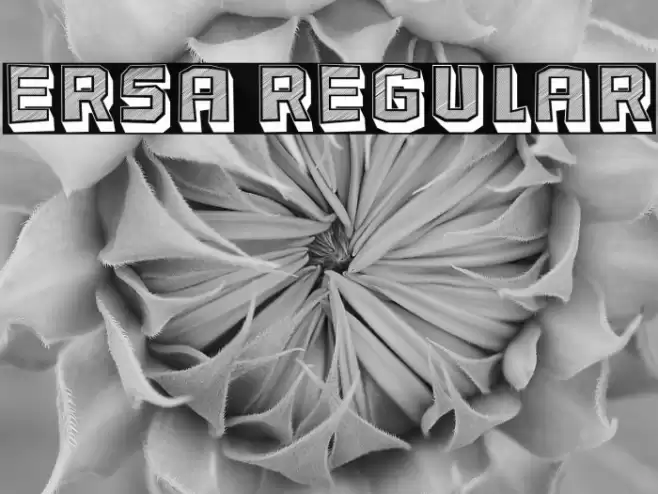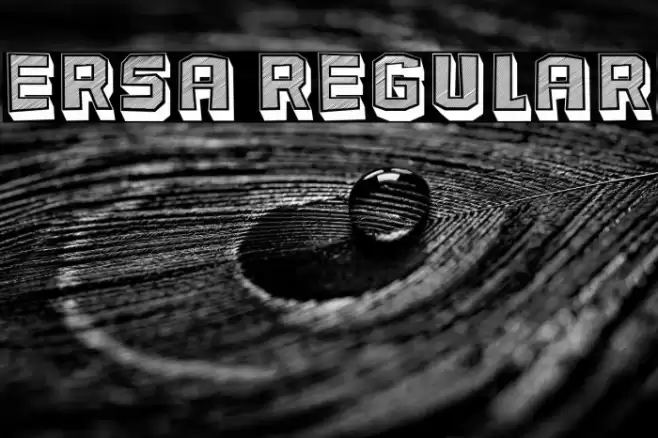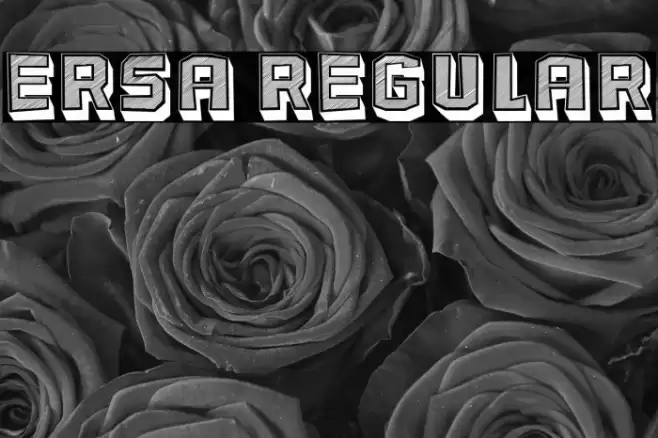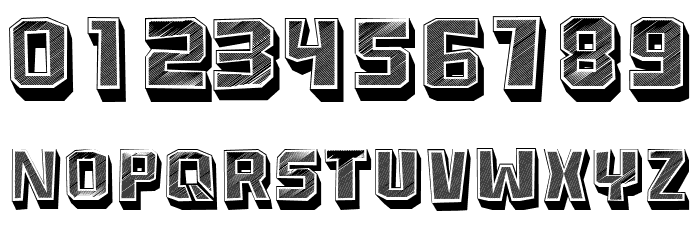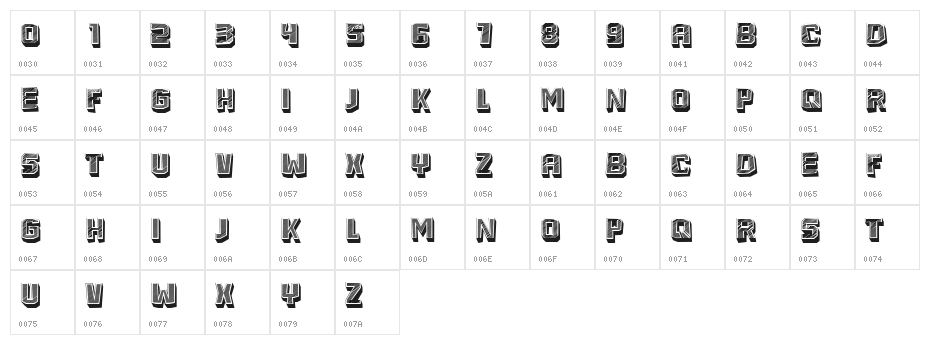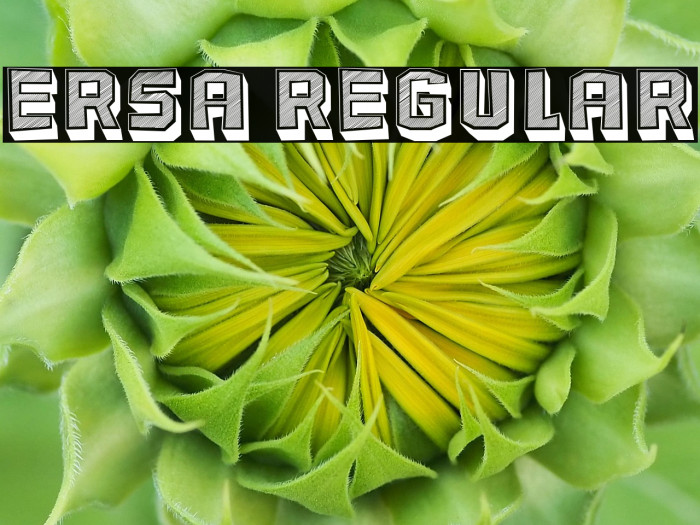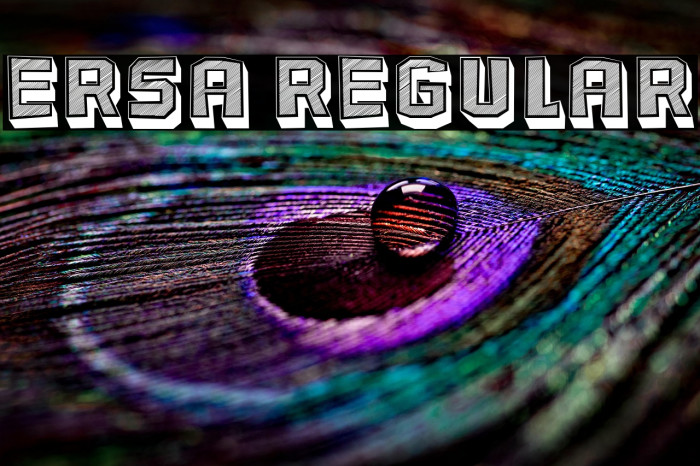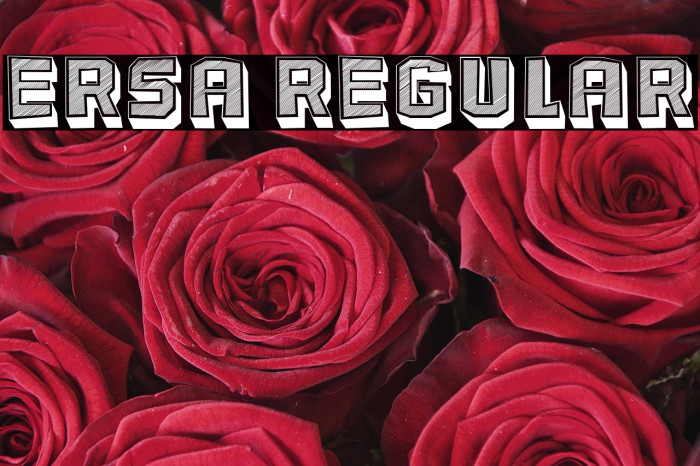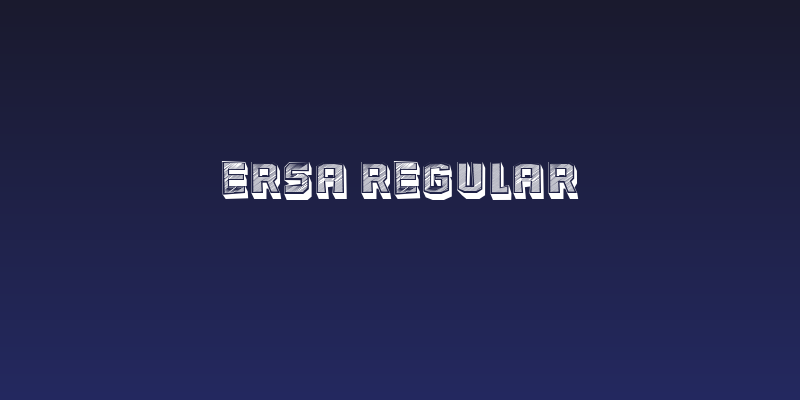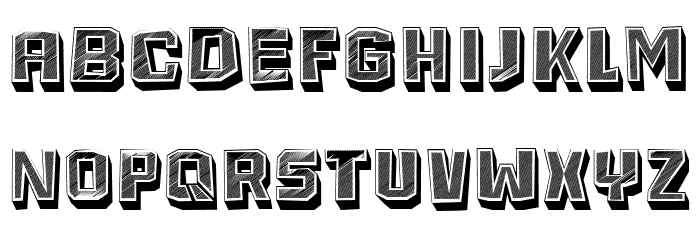
Ersa Regular Font
Ersa Regular Description
This font features a bold, three-dimensional design with a distinct shadow effect that gives each character a sense of depth and volume. The letters are capitalized and exhibit a geometric structure with sharp angles and clean lines. The interior of each character is filled with a diagonal line pattern, adding texture and visual interest. The overall style is striking and modern, making it ideal for attention-grabbing headlines or titles. The font's unique design elements make it stand out, while maintaining readability and clarity.
A bold, three-dimensional font with a shadow effect and textured interior from Uncategorized fonts.
- Proposed Projects: Ideal for posters, logos, video game titles, and any project requiring a bold, eye-catching typeface.